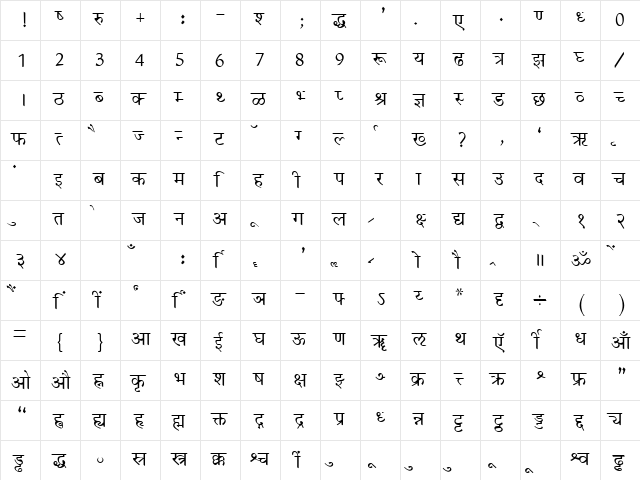
Krishna Normal
Design Context for Krishna Typeface
Krishna offers clean, dependable letterforms without strong stylistic allegiance, making it a practical choice for designers who need flexibility.